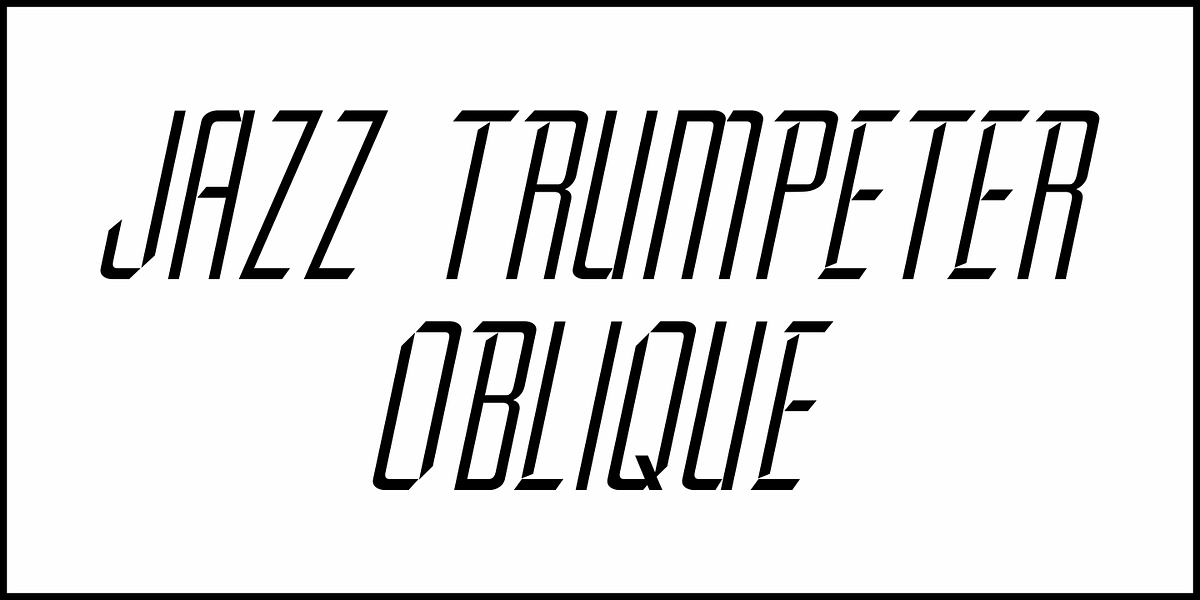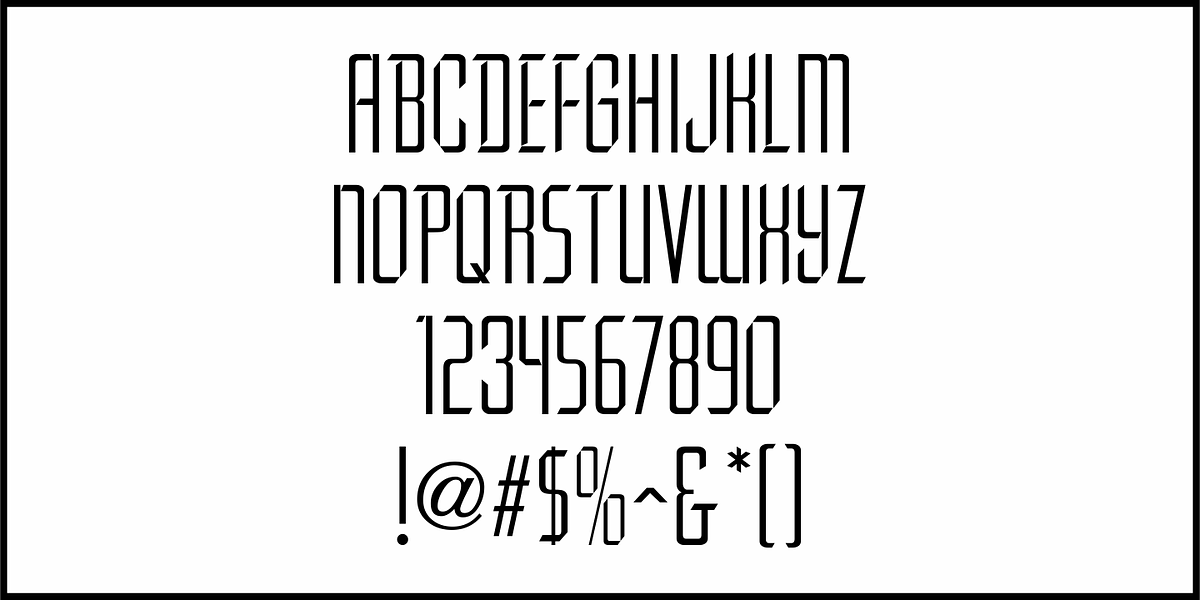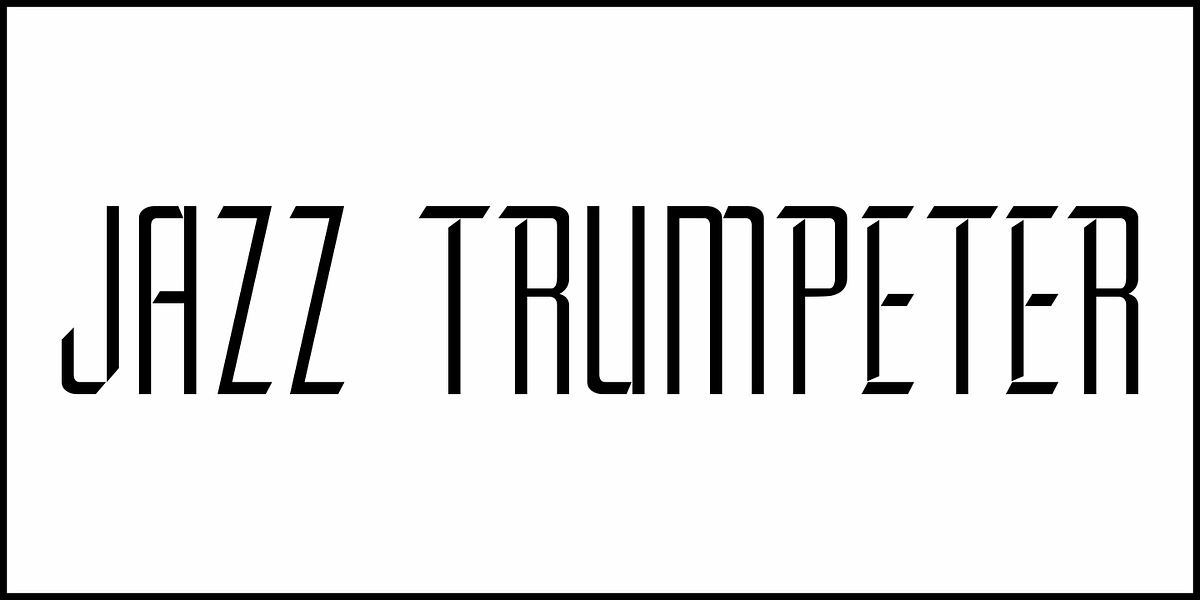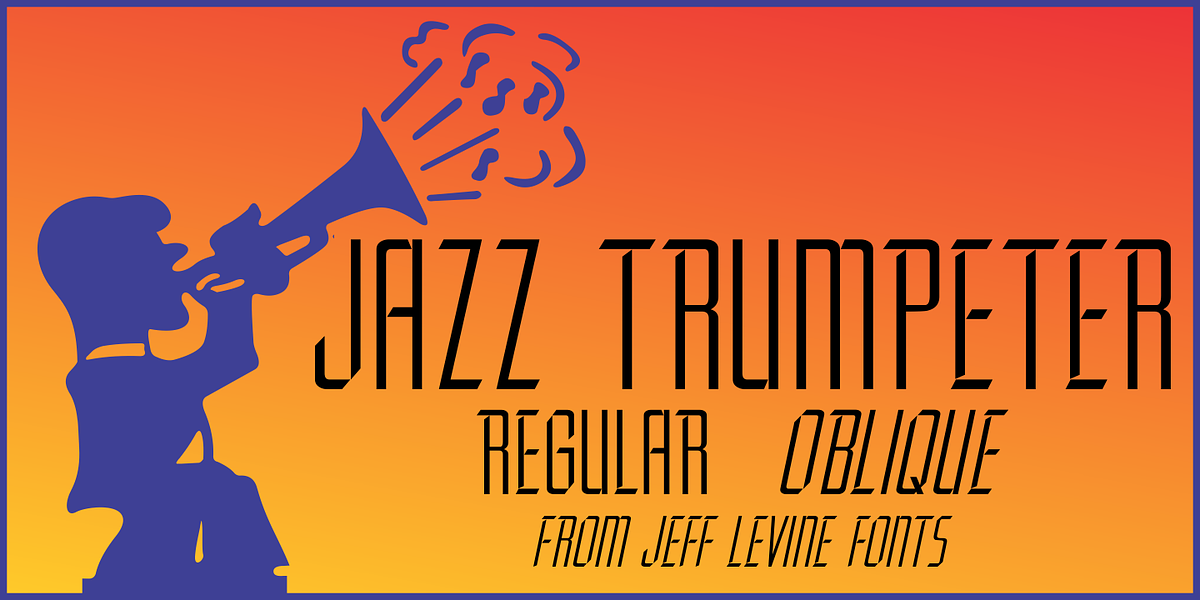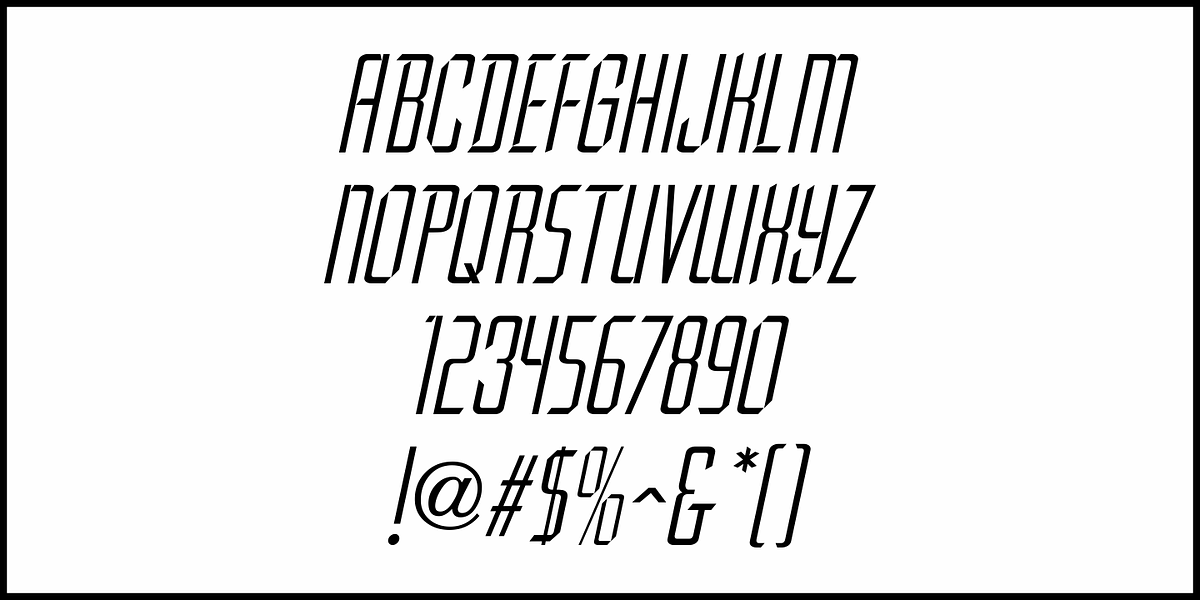
Jazz Trumpeter JNL
Jazz Trumpeter JNL is an unusual type design modeled after the title card for the 1945 movie comedy “The Horn Blows at Midnight” starring Jack Benny and is available in both regular and oblique versions.
This Art Deco sans serif font has the distinction of being somewhat calligraphic, yet futuristic in its visual appearance… and even has some subtle hints of Blackletter influences.